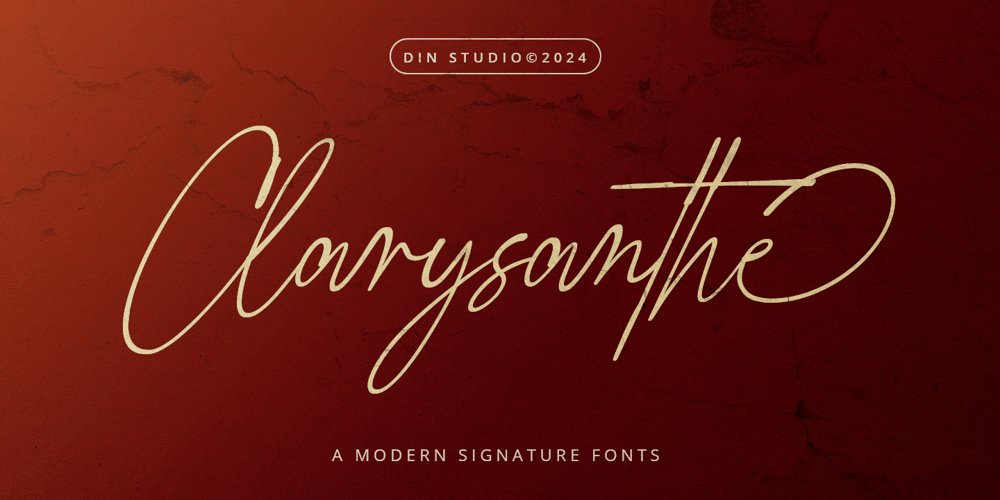
Clarysanthe Font Family was designed by Donis Miftahudin and published by Din Studio. Clarysanthe contains 1 styles and family package options. Clarysanthe is a graceful script font designed in an elegant signature style, made in connected letters with charming swinging ends. With its low contrast and balanced, consistent letter proportions, Clarysanthe exudes sophistication and fluidity. Let your designs flow effortlessly with the timeless charm of Clarysanthe. In addition, enjoy the features here.Features: Alternates Ligatures Multilingual Supports PUA Encoded Numerals and Punctuations Clarysanthe fits in headlines, logos, posters, invitation, branding materials, packaging, print media, editorial layouts, and many more designs. Find out more ways to use this font by taking a look at the font preview.Thanks for purchasing our fonts. Hopefully, you have a great time using our font. Feel free to contact us anytime for further information or when you have trouble with the font. Thanks a lot and happy designing.